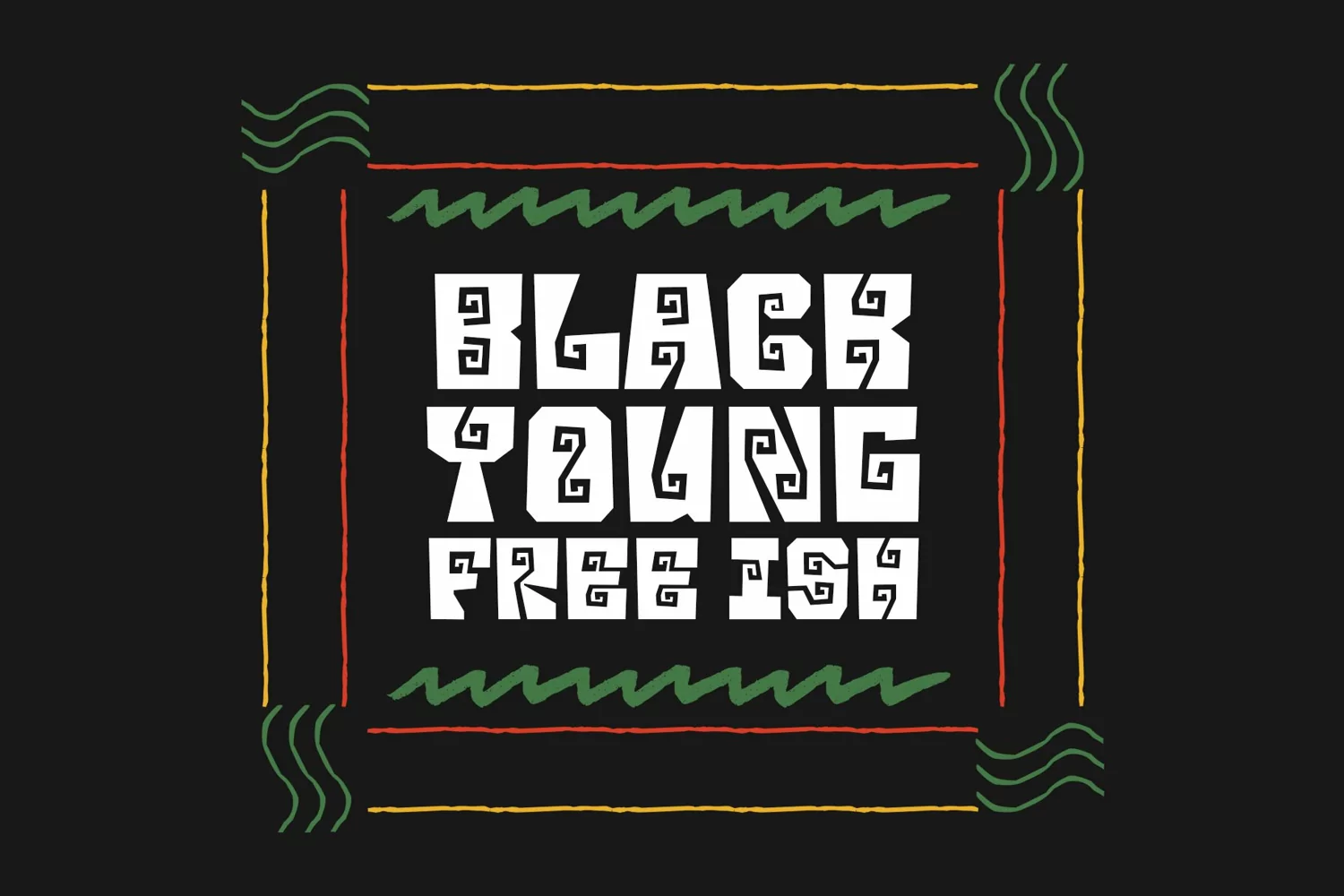
Moana is a new display typeface inspired by traditional culture. All-capitals font with strong strokes that very recommended for headline or display on a traditional theme.